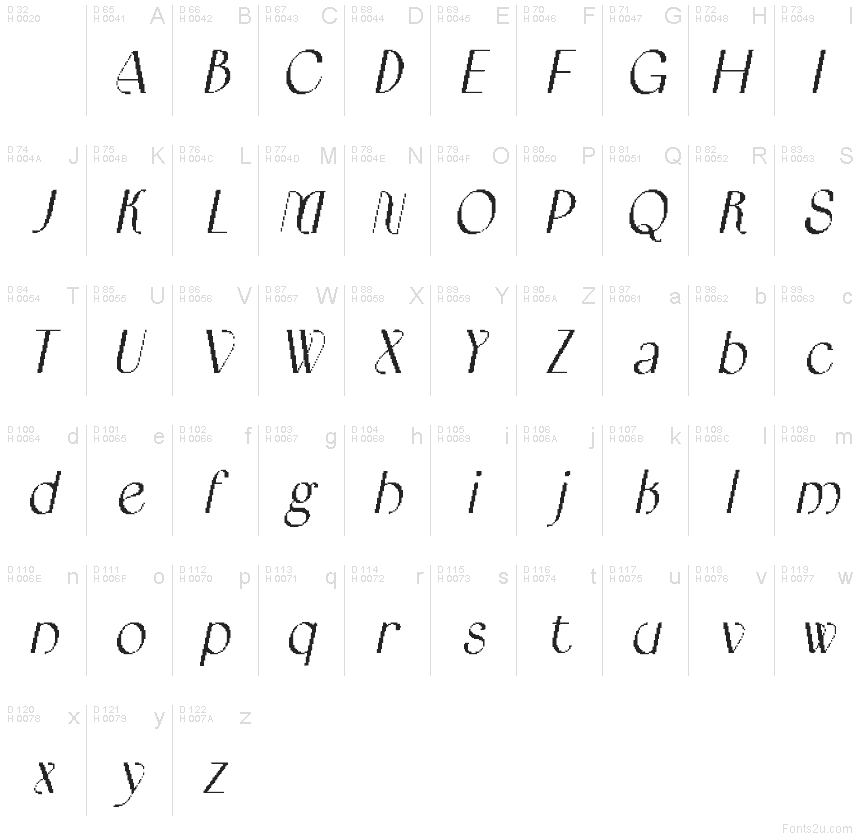
BordiePixel-Regular Demo
Bordie Pixel font by Craft Supply Co. is a free pixelated font from the Bordie family that turns calligraphic flow into crunchy stair-steps. Its defining move is elegant, slanted curves rendered as tidy pixel ramps, giving each word a lively swing without losing 8‑bit grit. The sharp, blocky edges catch light like mosaic tiles, while the rhythm stays surprisingly readable at headline sizes.
Using Bordie Pixel, you get retro energy with a touch of chic—great for game title screens, event flyers, album art, stickers, cafe menus, and social teasers. This free font works beautifully when set large; keep tracking tight to preserve its smooth staircase curves. Pair it with a clean pixel sans for body text to let Bordie Pixel handle the spotlight.